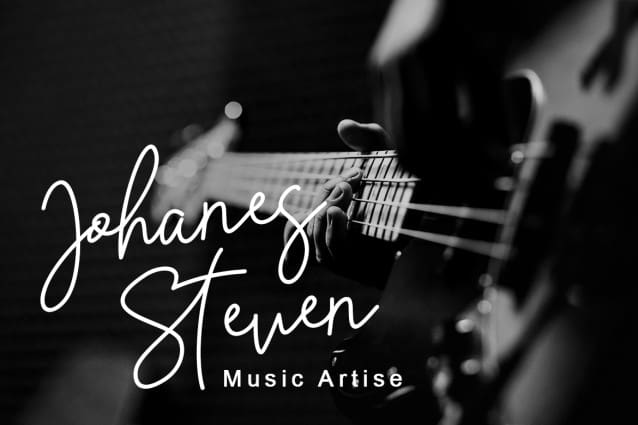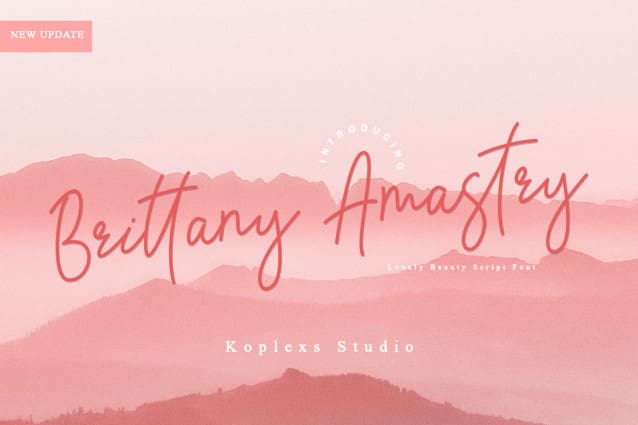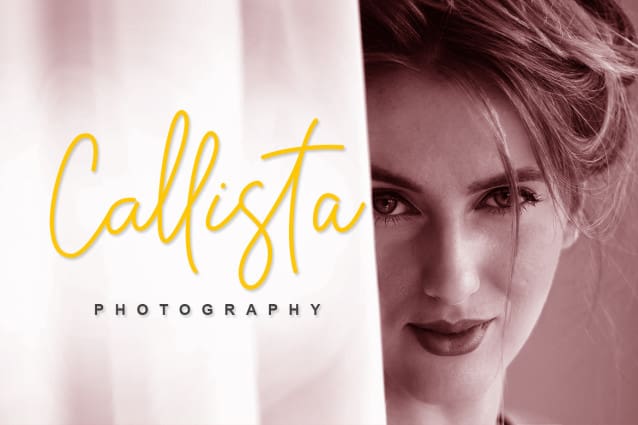
Brittany Amastry Font
Brittany Amastry Font – Handwritten Script font is a natural and modern handwritten font. It’s perfect for logos, invitations, stationery, wedding designs, social media posts, advertisements, product packaging, product designs, labels, photography, watermarks, special events, or whatever.